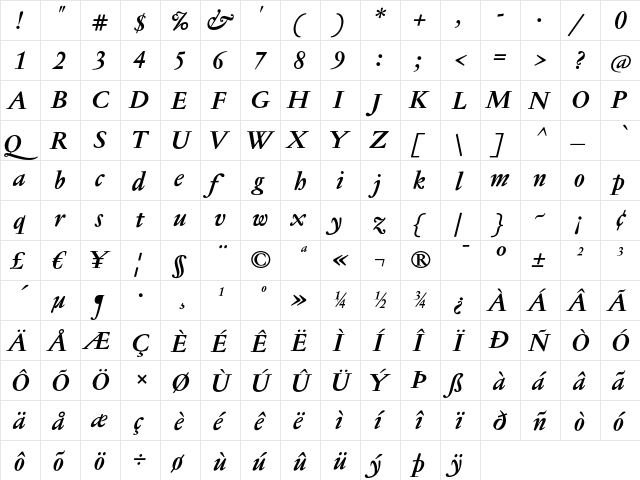
Jannon Text Med Bold Italic Font Preview
Jannon Text Med Bold Italic
Jannon Text Med Bold Italic Font Details
| Foundry | Frantisek Storm, stormtype.com |
Design Context for Jannon Text Med Typeface
Jannon Text Med offers clean, dependable letterforms without strong stylistic allegiance, making it a practical choice for designers who need flexibility. The slanted form adds forward momentum and visual energy. The heavy weight commands attention and anchors typographic hierarchies.
Pro Tip: Use Jannon Text Med for emphasis, pull quotes, and subheadings where its slanted energy can add rhythm to the layout.